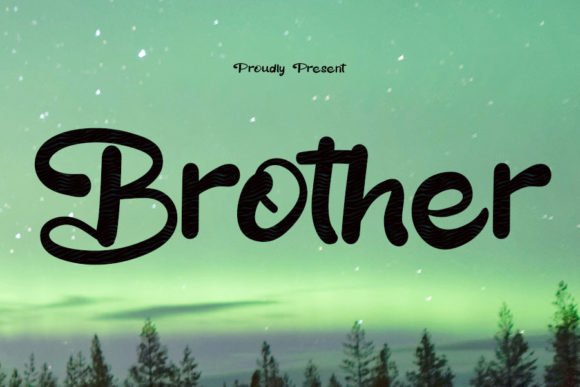
Unleash Your Creativity with Brother Font
Have you ever been in a creative flow, where the ideas are pouring in, and the words are flowing effortlessly onto the page? It’s that magical moment when everything feels just right, and your imagination knows no bounds. As a designer, you know how precious those moments are, and how crucial the right tools are to capture them.
Enter Brother Font, a masterfully designed handwritten font that’s about to become your new best friend. This font is not just another addition to your toolkit, but a partner in crime that will help you elevate your creative ideas to new heights. With its unique charm and versatility, Brother Font is the perfect companion for designers who want to add a personal touch to their projects.
Brother Font Key Features
- Unique Characteristic: Brother Font features a unique blend of modern and traditional design elements, making it an ideal choice for businesses and individuals looking for a distinctive and professional look.
Brother Font Review
As a designer, I was excited to dive into the Brother Font and see what it had to offer. Here’s my honest review:
- Unique aesthetic: The Brother Font has a distinct, hand-written feel that’s perfect for adding a touch of personality to your designs.
- Good legibility: Despite its cursive nature, the font is still easy to read, making it a great choice for body text.
- Versatility: The font comes in a range of weights and styles, allowing you to mix and match to suit your design needs.
- Not ideal for headings: While the font is great for body text, it’s not the best choice for headings or titles, where you want a bolder, more attention-grabbing font.
- Limited support: I encountered some issues with the font not rendering correctly in certain software or on certain devices.
Overall, I think the Brother Font is a solid choice for designers who want to add a touch of personality to their work. While it has some limitations, its unique aesthetic and good legibility make it a great addition to any design toolkit.
Tips for Getting the Most Out of Brother Font
Brother Font is a versatile font that can be used for various designs and projects. Here are some tips to get the most out of it:
1. Experiment with different font sizes and styles to create a unique look.
2. Pair Brother Font with other fonts to create a harmonious typography.
3. Use Brother Font for titles and headings to create a strong visual impact.
Brother Font is commonly used for:
1. Creative projects such as posters, flyers, and brochures.
2. Branding and marketing materials such
Alternatives to Brother Font
Playfair Display is an elegant, high-end serif font ideal for luxury branding, fine art, and high-end publications. Its sophisticated look makes it perfect for designers looking to create a sense of sophistication and refinement. Compared to Brother Font, Playfair Display is more luxurious and ornate, while Brother Font is more straightforward and modern.
Great Vibes is a beautiful, cursive font that is perfect for creating a sense of warmth and friendliness. It’s ideal for designers looking to create a casual, approachable atmosphere, and is commonly used in invitations, posters, and other promotional materials. Compared to Brother Font, Great Vibes is more playful and expressive, while Brother Font is more straightforward and modern.